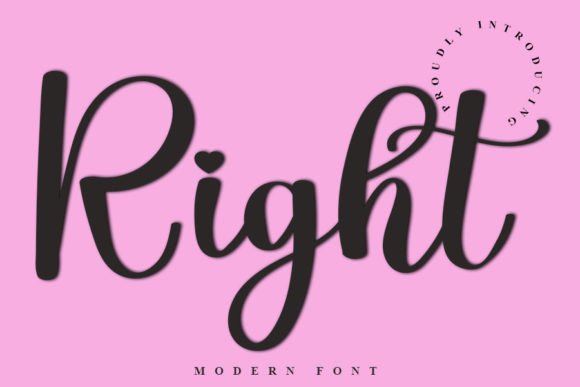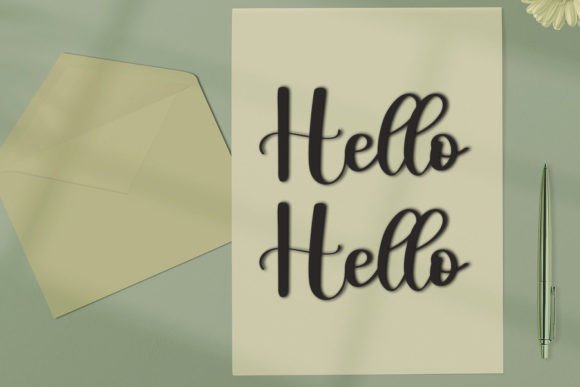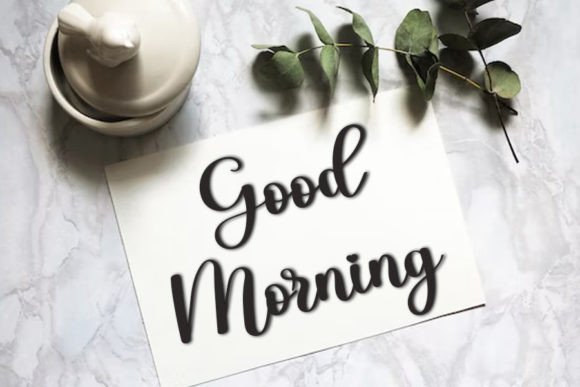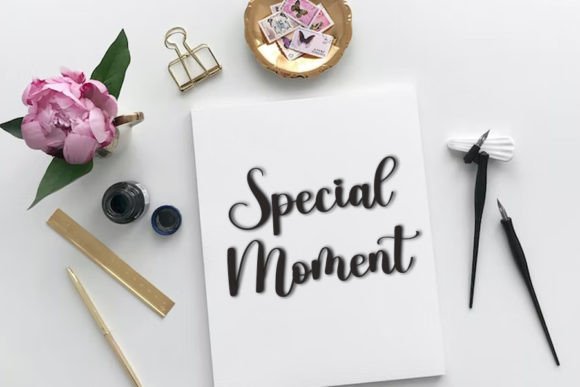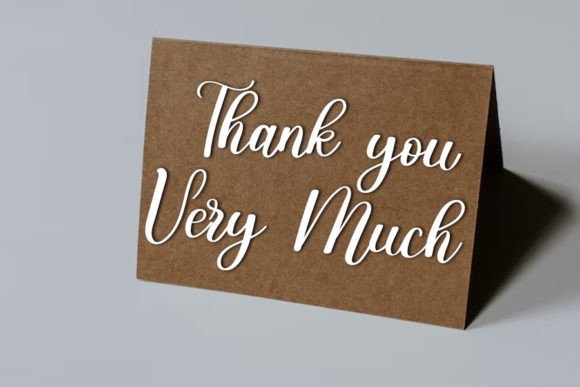
Right Font
About Right Font
Rightfont is a beautifully crafted handwritten typeface that combines charm with elegance. It brings a personal and sophisticated touch to your designs, making it perfect for projects that require a warm, feel.
Elegant and Charming Handwriting
With smooth strokes and balanced letterforms, the Rightfont stands out as a yet approachable script. Its natural flow mimics real  providing your designs with authenticity and style. Whether for formal or casual projects, this font adapts seamlessly.
Ideal for Special Occasions and Branding
This versatile font shines in various creative applications, including:
• Wedding invitations: Create a romantic and heartfelt atmosphere.
• Thank you cards: Express gratitude with elegance.
• Greeting cards and quotes: Add a personal, warm touch.
• Logos and branding: Develop an and memorable identity.
• Business cards: Impress clients with a stylish handwritten look.
Versatility and Readability
Designed to balance style and Rightfont performs beautifully across digital and print formats. Its charming and elegant design makes it suitable for professional branding as well as personal crafts.
Why Choose Right Font?
Choose Rightfont when you want to add a handwritten charm that feels both elegant and genuine. Its ensures it enhances a wide range of projects, bringing warmth, style, and to every creation.